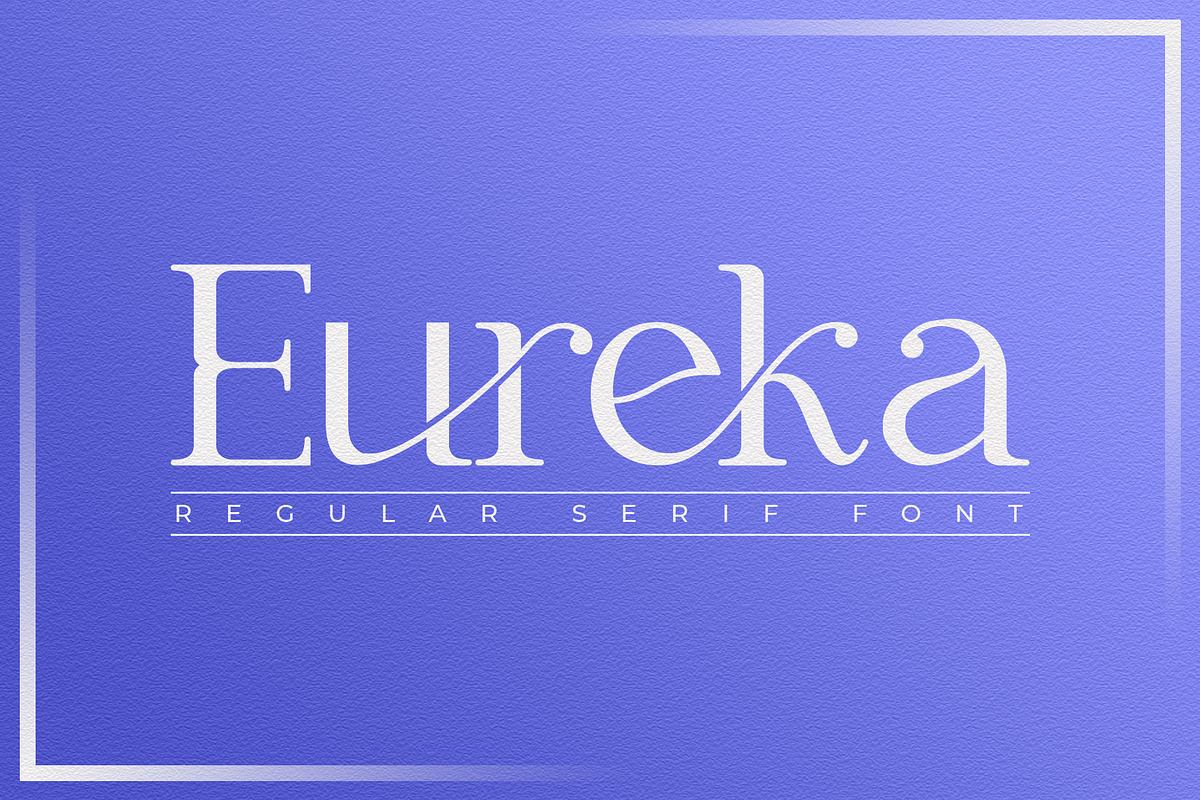
Eureka Serif Font Free Download is a bold and elegant typeface that blends classic serif structure with modern sophistication. Please note, you are required to purchase this font for commercial use. It is available for free download for testing and personal projects only.
With its high contrast, refined curves, and sharp serifs, Eureka is perfect for editorial layouts, fashion branding, packaging, logos, book covers, and premium product designs. It commands attention while maintaining a polished and professional tone—ideal for projects that require style and substance.
By choosing Eureka Serif Font Free Download, you're adding a high-quality, versatile serif to your creative toolkit. It installs easily and works flawlessly across all major design platforms. Whether you’re designing for print or digital, Eureka brings timeless elegance and a modern edge to your typography.